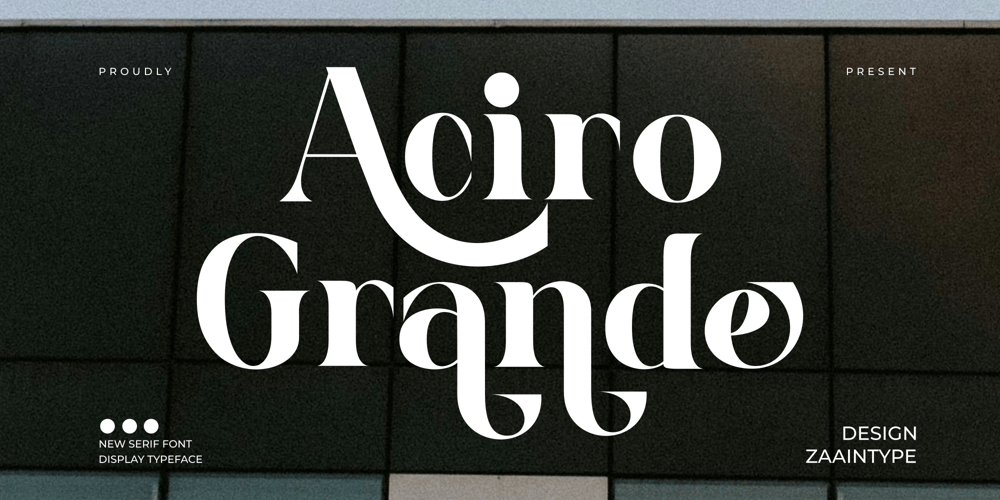
Aciro Grande
Aciro Grande font
Aciro Grande Font Family was designed by Ju Naen and published by Zaain Type. Aciro Grande contains 2 styles and family package options. Aciro Grande is an elegant serif font that blends classic luxury with a modern touch. Available in two styles: Regular – Bold, strong, and highly readable, perfect for headlines and body text. Oblique – Subtly slanted, dynamic, and expressive, ideal for accents and standout designs.With a balance of elegance and versatility, Aciro Grande enhances your visual identity in branding, editorial, and premium design projects